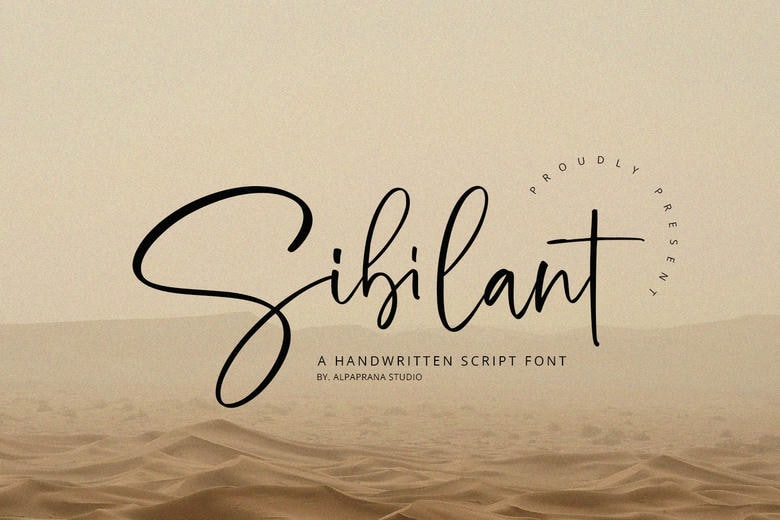
Sibilant Font
Sibilant is a handwritten font, with fresh and rather New Age qualities. It will be perfectly used for Branding, Logo Design, Lettering, Logotype, Clothing, Poster, magazine, packaging, posters, shopping bags, t-shirts, book covers, photography, special events and other design project.
Sibilant Handwritten Font